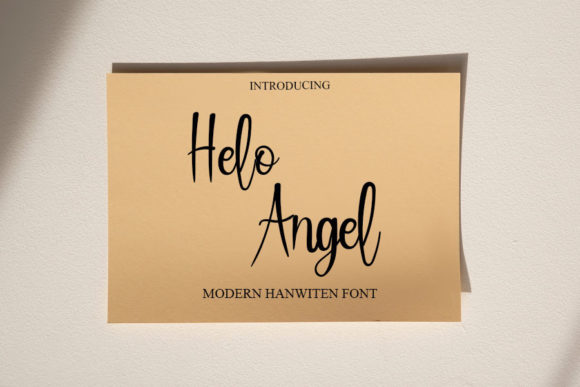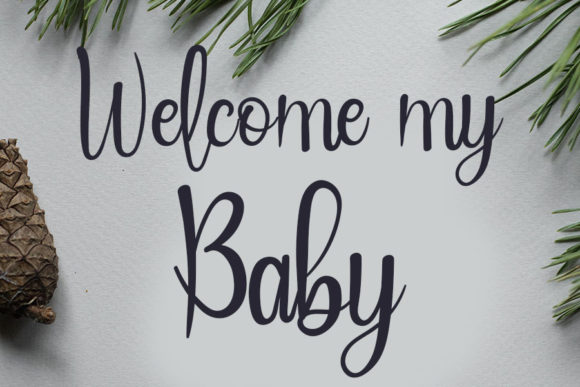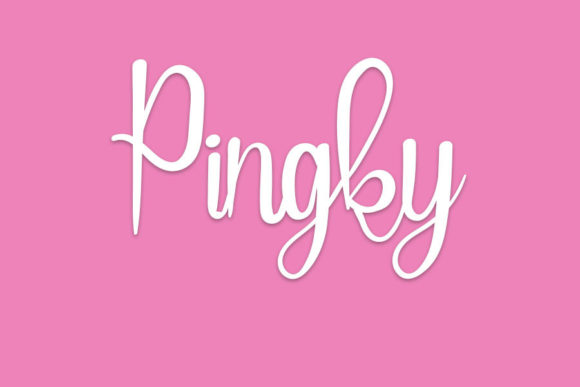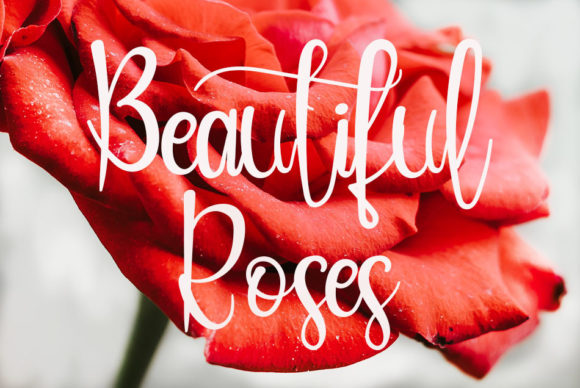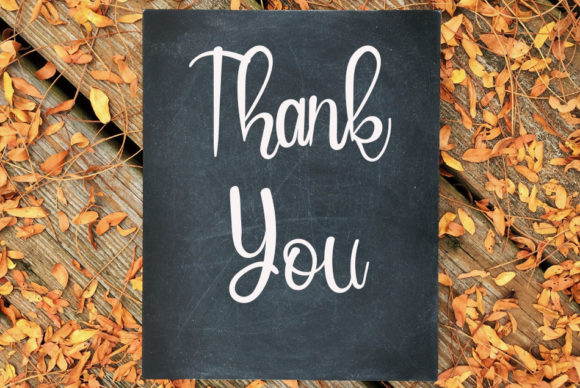
Hello Angel Font
About Hello Angel Font
Hello Angel is a beautiful and light handwritten font with a unique feel and a stunning impact. It will add a luxury spark to any design project that you wish to create!